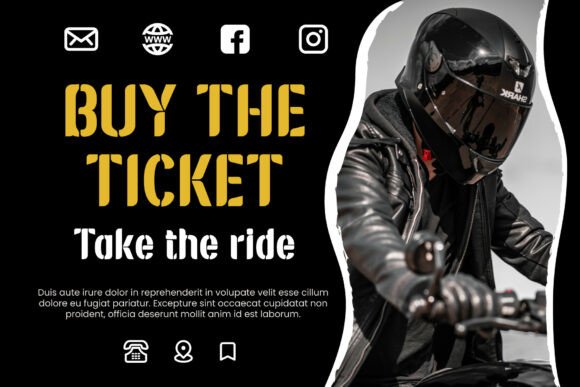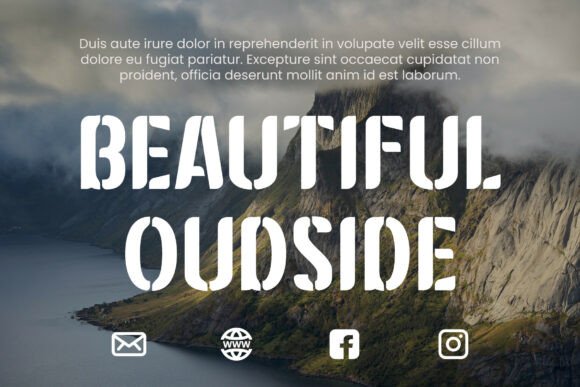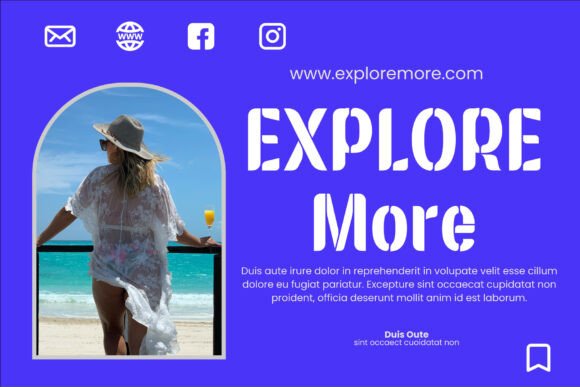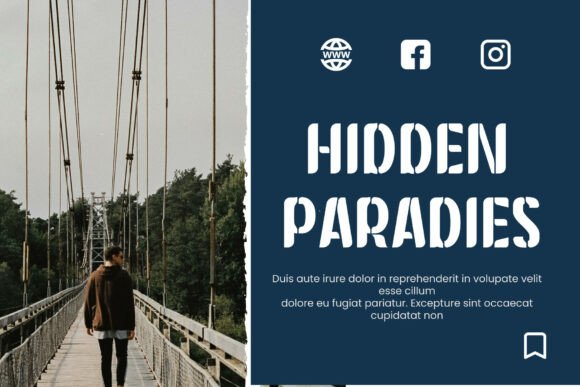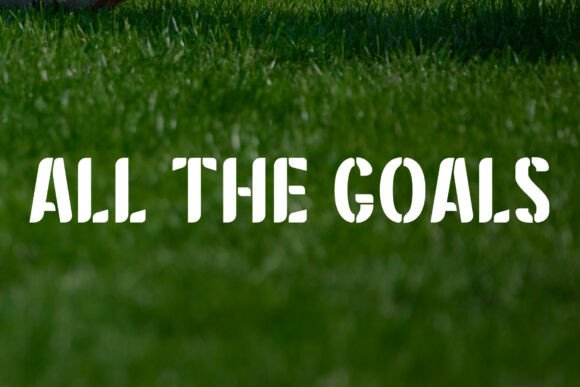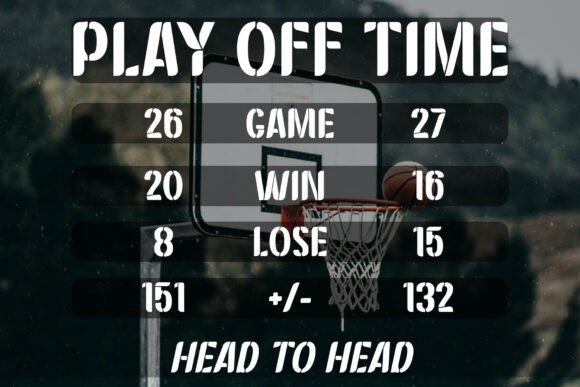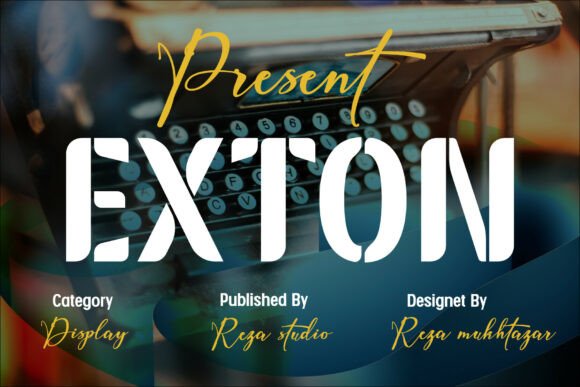
Introducing Exton Font: The Ultimate Display Font for Bold Designs
In the world of typography, a font can make or break a design. If you’re looking for a font that can add a touch of modernity and sophistication to your project, look no further than Exton Font. Specifically, Exton Bold is a striking display font that is crafted to make your designs stand out from the crowd. With its unique blend of modern geometry and clean cuts, Exton delivers a powerful visual presence that is sure to grab attention.
The Inspiration Behind Exton Font
Exton Font is inspired by the clean lines and geometric shapes that are characteristic of modern design. The font’s creator drew inspiration from the world of architecture and industrial design, where clean cuts and bold lines are used to create a sense of drama and sophistication. The result is a font that is both modern and timeless, with a unique aesthetic that is sure to set your designs apart.
The Unique Features of Exton Bold
So, what sets Exton Bold apart from other display fonts on the market? For starters, its bold letterforms are designed to make a statement. The font’s unique sliced details add a touch of edginess and sophistication, making it perfect for projects that demand attention and a contemporary edge. Whether you’re designing a logo, a headline, or a title, Exton Bold is the perfect choice for adding a touch of drama and flair.
Perfect for Projects that Demand Attention
Exton Bold is perfect for projects that require a font that can grab attention and hold it. Whether you’re designing a poster, a brochure, or a website, this font is sure to make your design stand out from the crowd. Its bold letterforms and unique sliced details make it perfect for headlines, titles, and other applications where you want to make a statement.
Why Designers and Crafters Love Exton Font
Designers and crafters love Exton Font for its versatility and flexibility. The font is perfect for a wide range of projects, from branding and advertising to packaging and digital design. Its unique aesthetic and bold letterforms make it a great choice for designers who want to add a touch of modernity and sophistication to their designs.
Tips for Using Exton Font in Your Designs
So, how can you get the most out of Exton Font in your designs? Here are a few tips to keep in mind:
- Use Exton Bold as a headline or title font to add a touch of drama and flair to your design.
- Pair Exton Bold with a clean, sans-serif font for a modern and sophisticated look.
- Don’t be afraid to get creative and try new things – Exton Font is a versatile font that can be used in a wide range of applications.
In conclusion, Exton Font is a powerful display font that is perfect for designers and crafters who want to add a touch of modernity and sophistication to their designs. With its bold letterforms and unique sliced details, Exton Bold is sure to make your designs stand out from the crowd. Whether you’re designing a logo, a headline, or a title, Exton Font is the perfect choice for adding a touch of drama and flair.
Get Ready to Take Your Designs to the Next Level